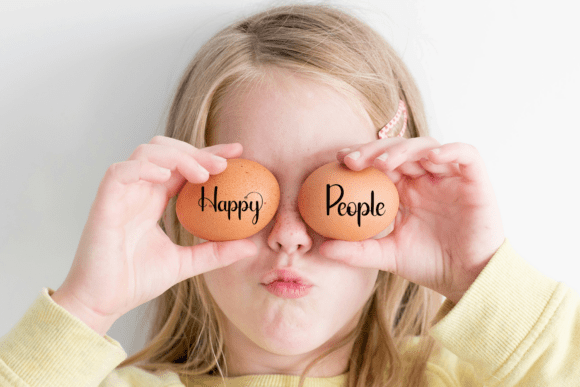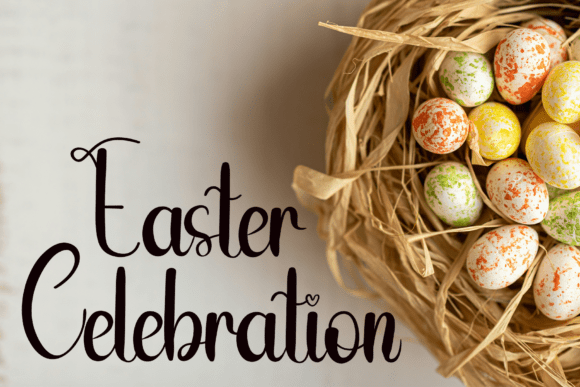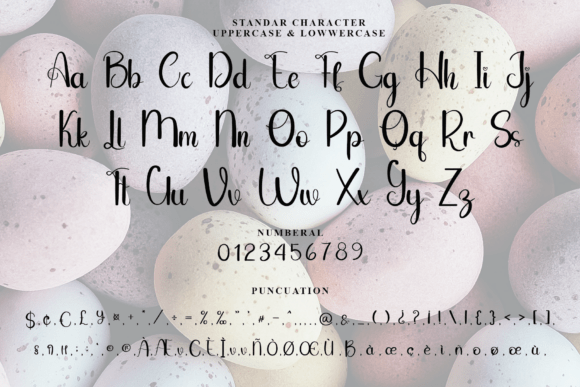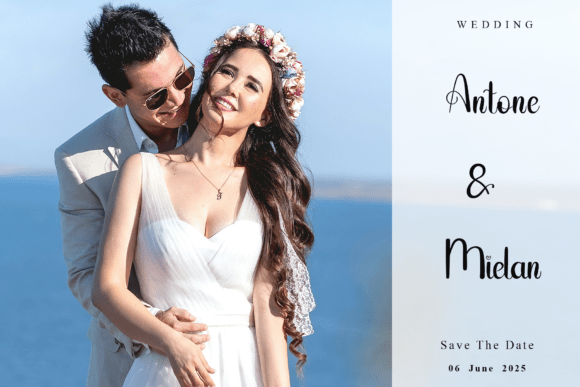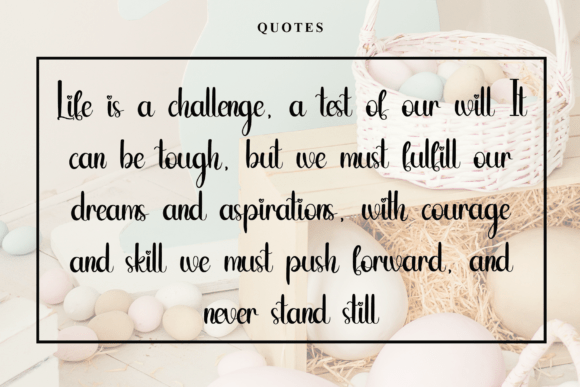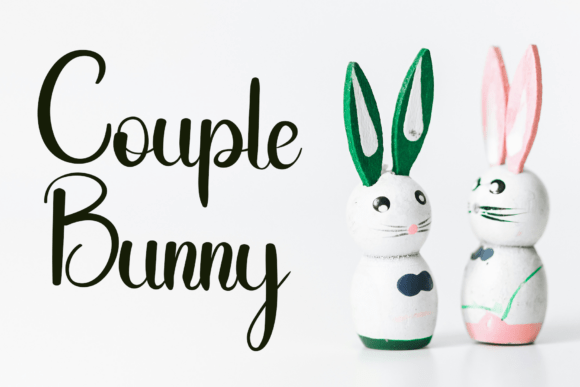
The Easter Bunny Font: A Simple yet Versatile Handwritten Delight
I’ll never forget the time I was working on a last-minute Easter project for a client, and I just couldn’t find the right font to match the playful, whimsical vibe they were looking for. I scoured the internet, tried out dozens of fonts, but nothing seemed quite right. That was until I stumbled upon the Easter Bunny font. It was like a breath of fresh air – simple, handwritten, and full of character. In this article, I’ll share my experience with this lovely font, and explore its many uses, features, and alternatives.
So, what do I love about the Easter Bunny font? Here are a few things that make it stand out:
- ✨ Simple and easy to read: The Easter Bunny font has a clean, uncomplicated design that makes it perfect for a wide range of projects, from greeting cards to headlines.
- ✅ Versatile: This font can be used for both personal and professional projects, and its neutral tone ensures it will fit in with most design styles.
- 💕 Whimsical feel: The Easter Bunny font has a playful, handwritten quality that adds a touch of warmth and personality to any project.
Of course, no font is perfect, and there are a few small quirks to be aware of:
- 🤔 Limited glyphs: The Easter Bunny font doesn’t have a huge range of glyphs or special characters, so you may need to get creative if you’re looking for something specific.
- ⚠️ Not suitable for body text: While the Easter Bunny font is great for headlines or short paragraphs, it’s not the best choice for longer blocks of text.
One of the best things about the Easter Bunny font is its support for OpenType features and glyphs. Here are a few tips for getting the most out of these features:
- Stylistic alternates: The Easter Bunny font includes a range of stylistic alternates, which can be used to add variation and interest to your text.
- Glyphs: The font also includes a range of glyphs, from simple shapes to more complex characters.
The Story Behind Easter Bunny Font
The Easter Bunny font was designed by a talented typographer who wanted to create a simple, yet charming font that would capture the spirit of the Easter holiday. With its clean lines, playful feel, and versatile design, it’s no wonder this font has become a favorite among designers and crafters.
| What is the Easter Bunny font best used for? | The Easter Bunny font is perfect for a wide range of projects, from greeting cards to headlines, and is especially great for Easter-themed designs. |
| Is the Easter Bunny font suitable for body text? | No, the Easter Bunny font is best used for headlines or short paragraphs, as it may be difficult to read in longer blocks of text. |
| Does the Easter Bunny font support OpenType features? | Yes, the Easter Bunny font supports OpenType features, including stylistic alternates and glyphs. |